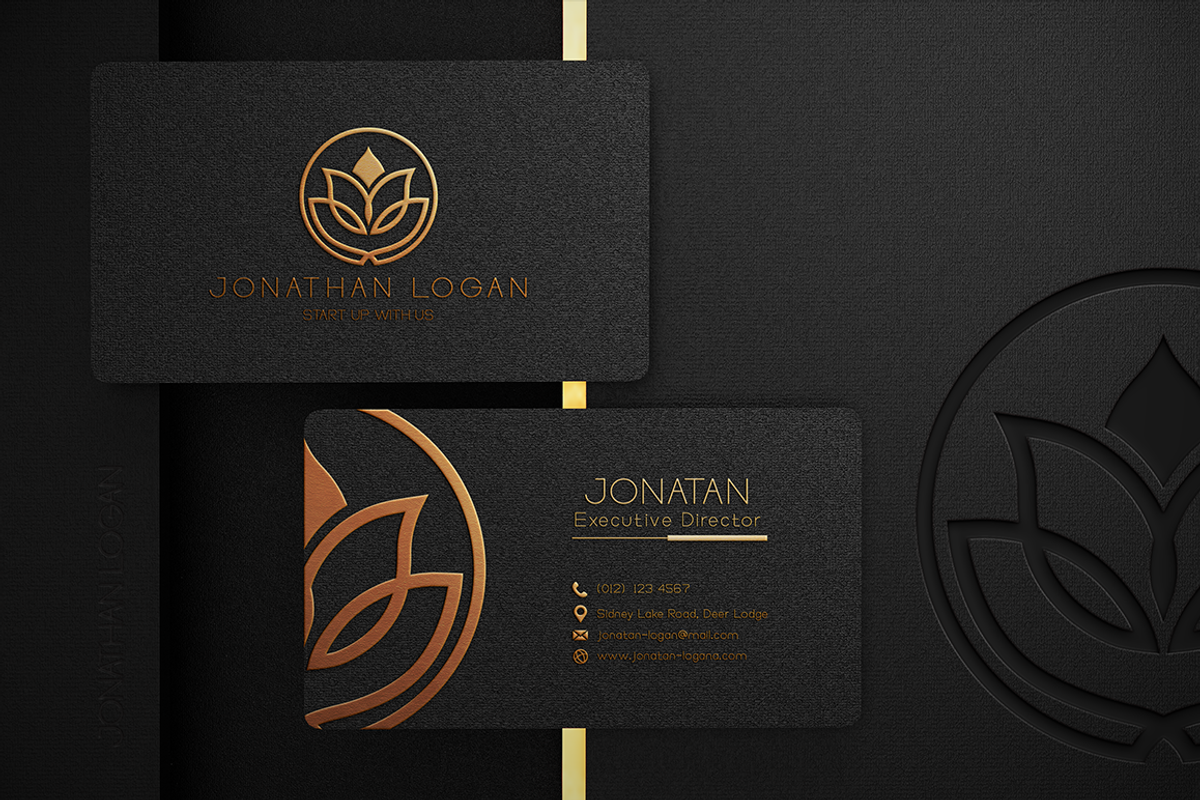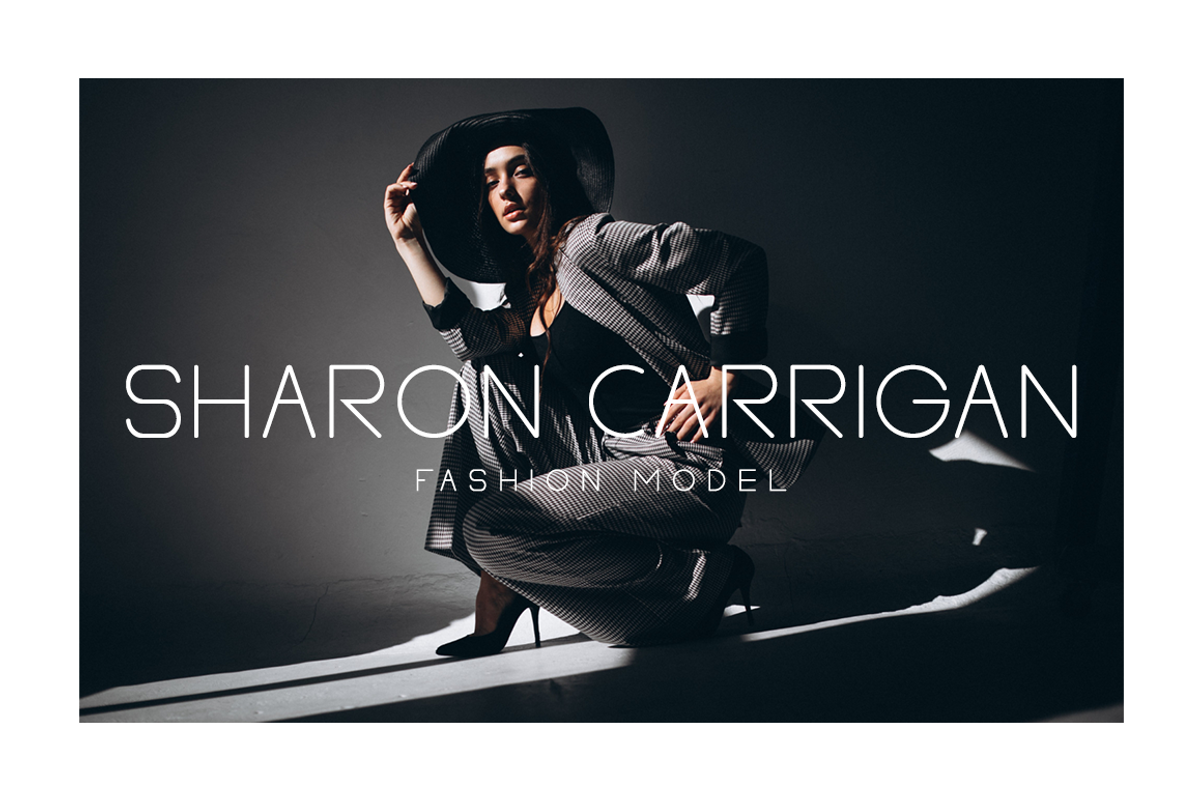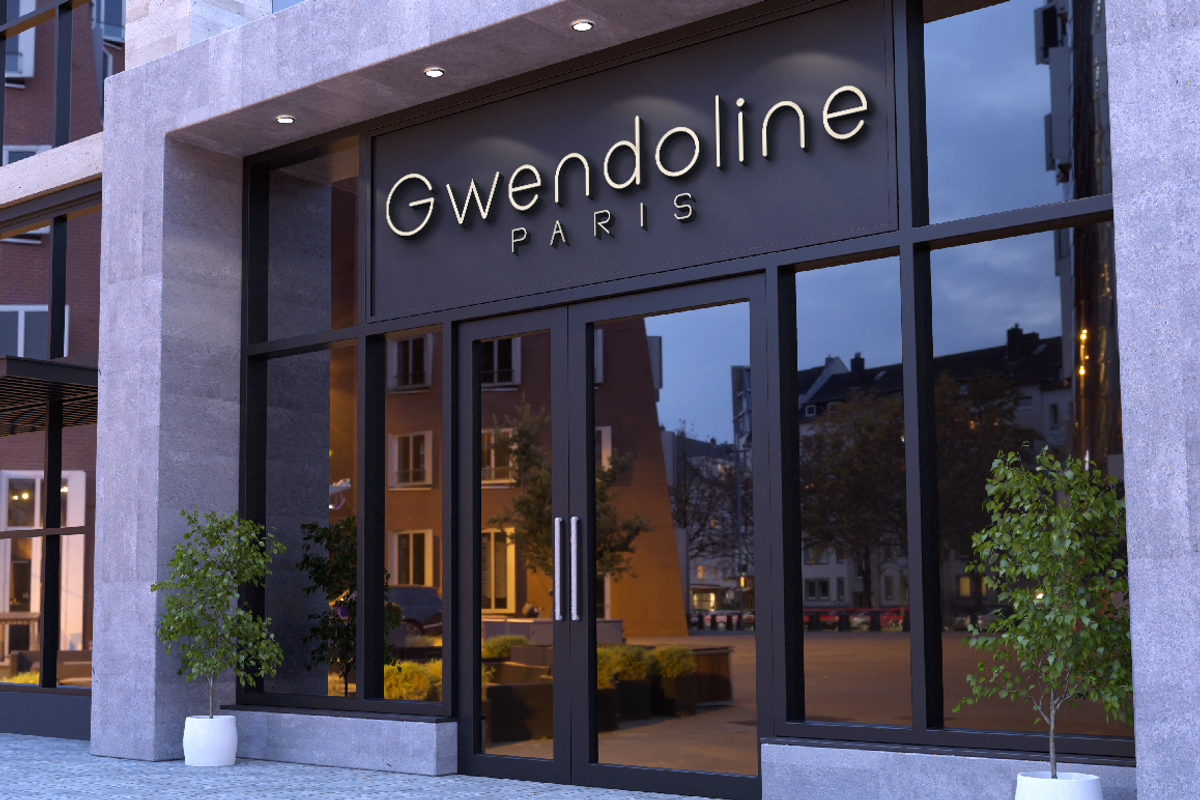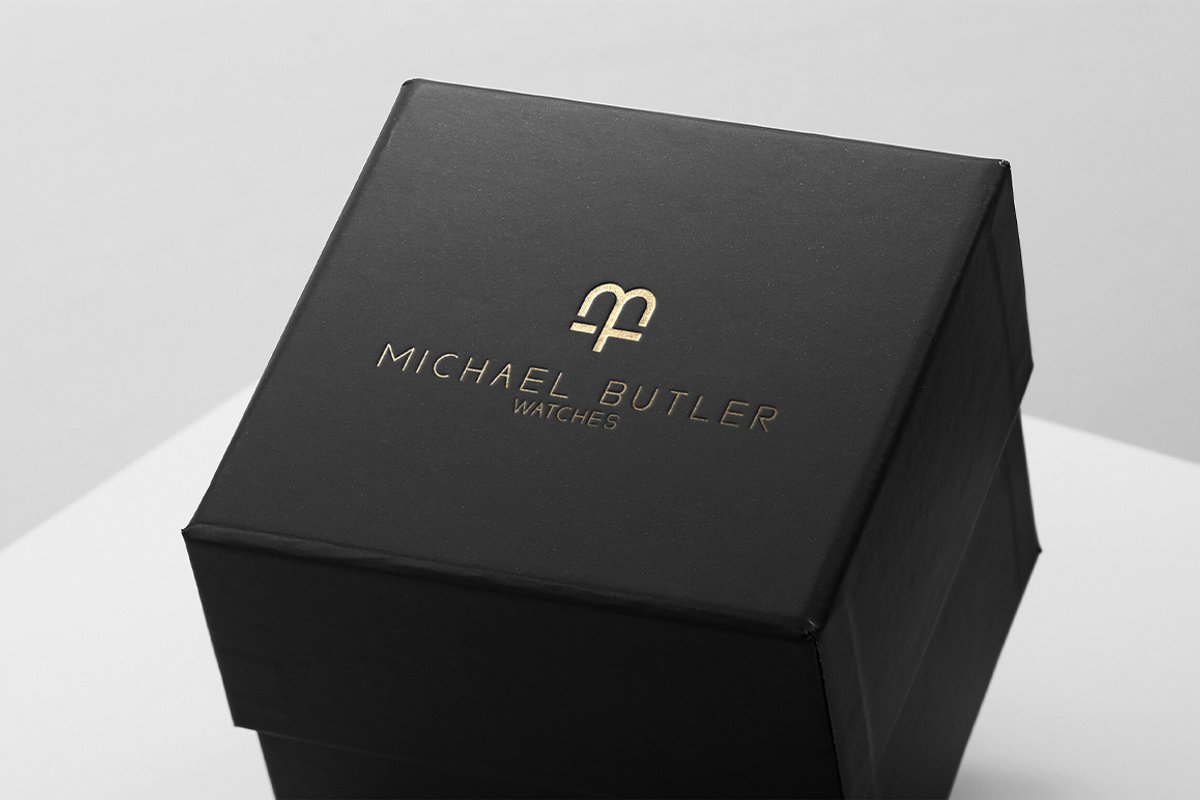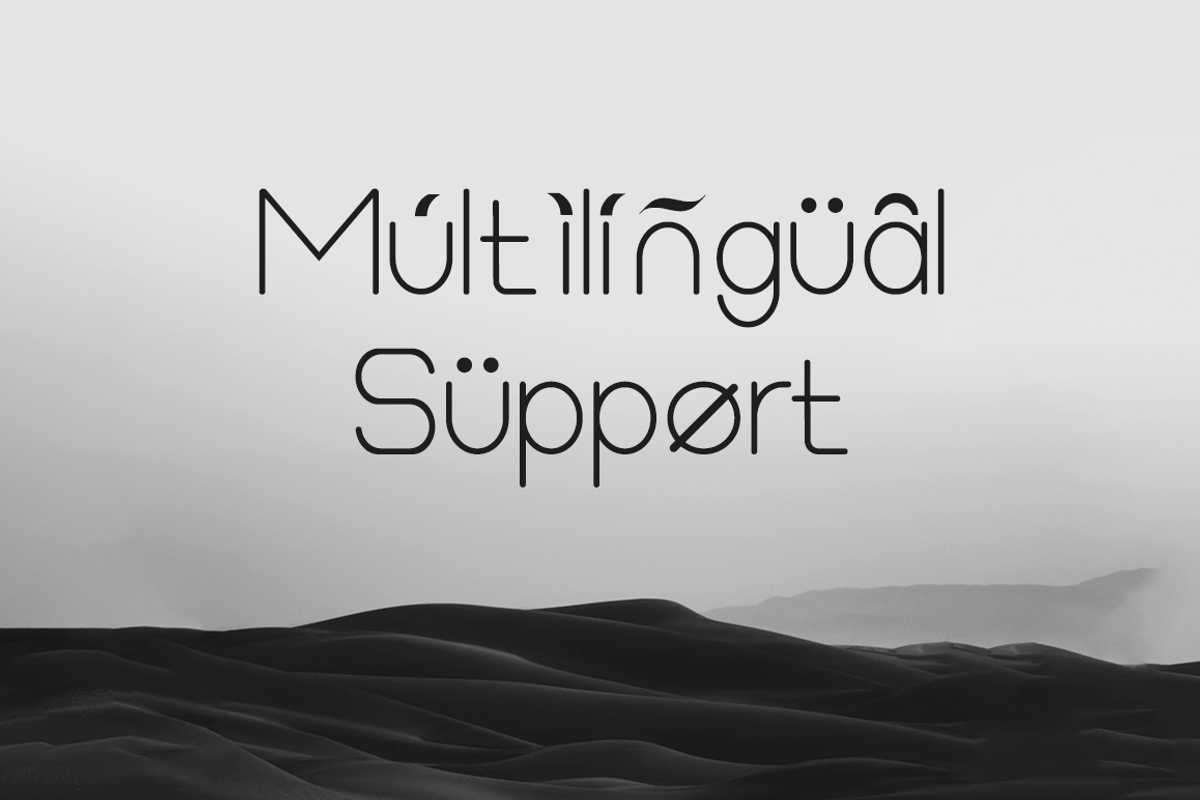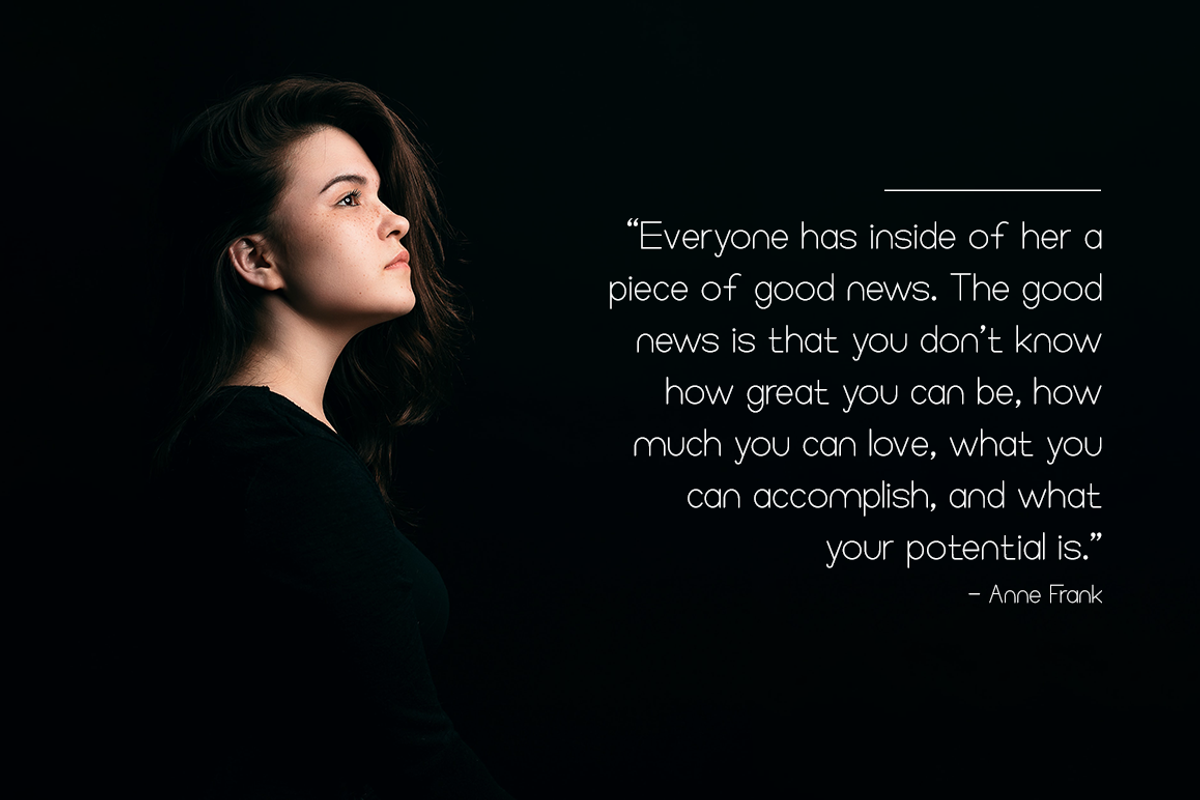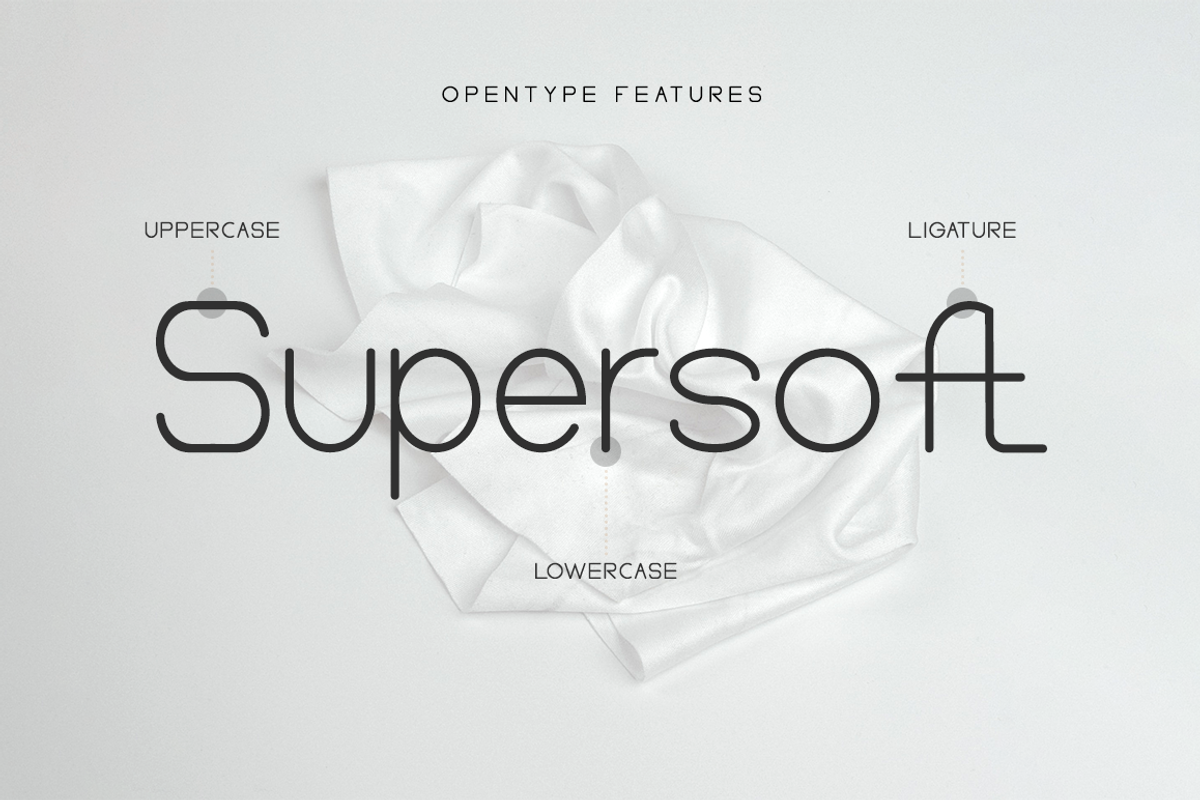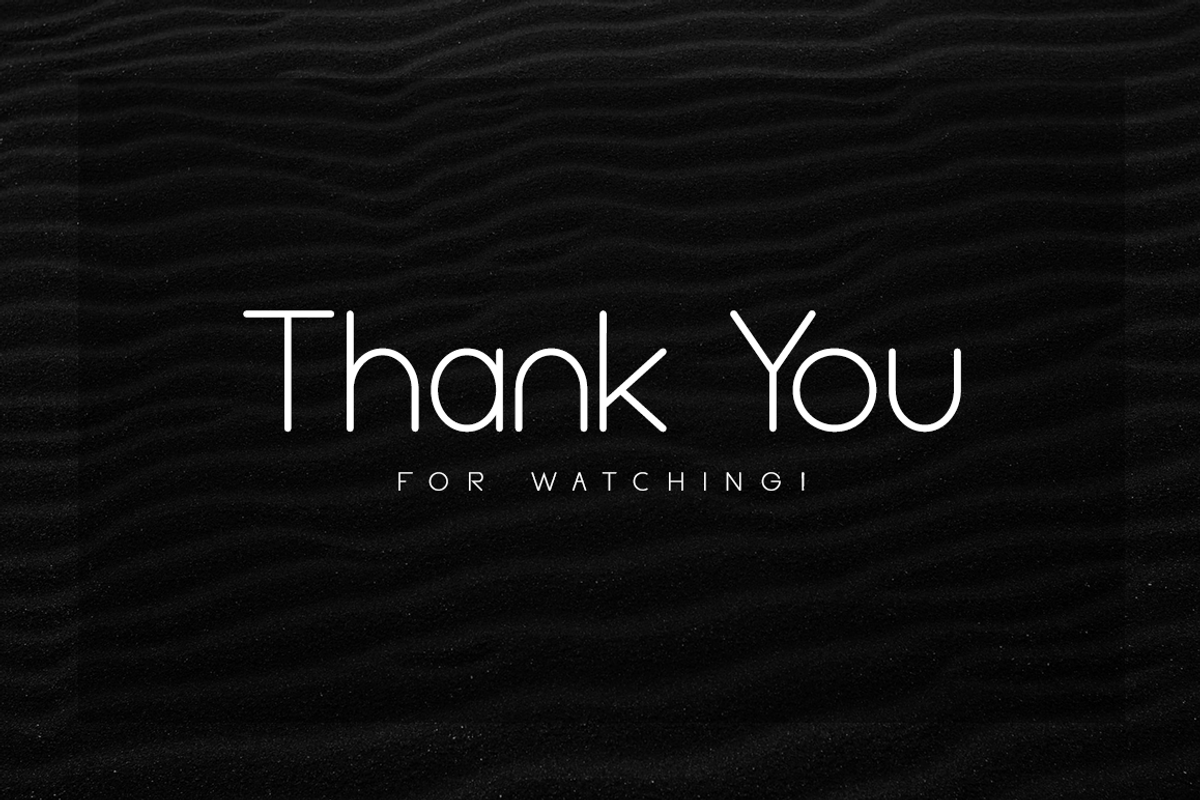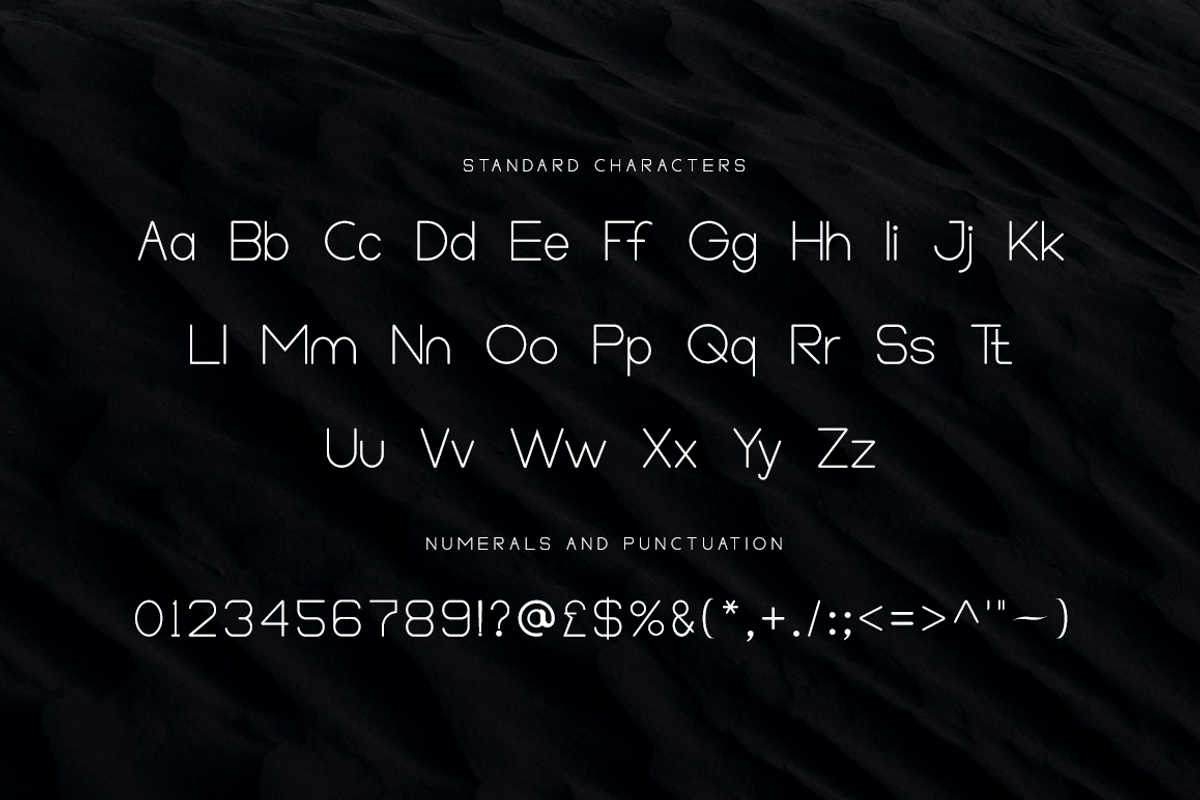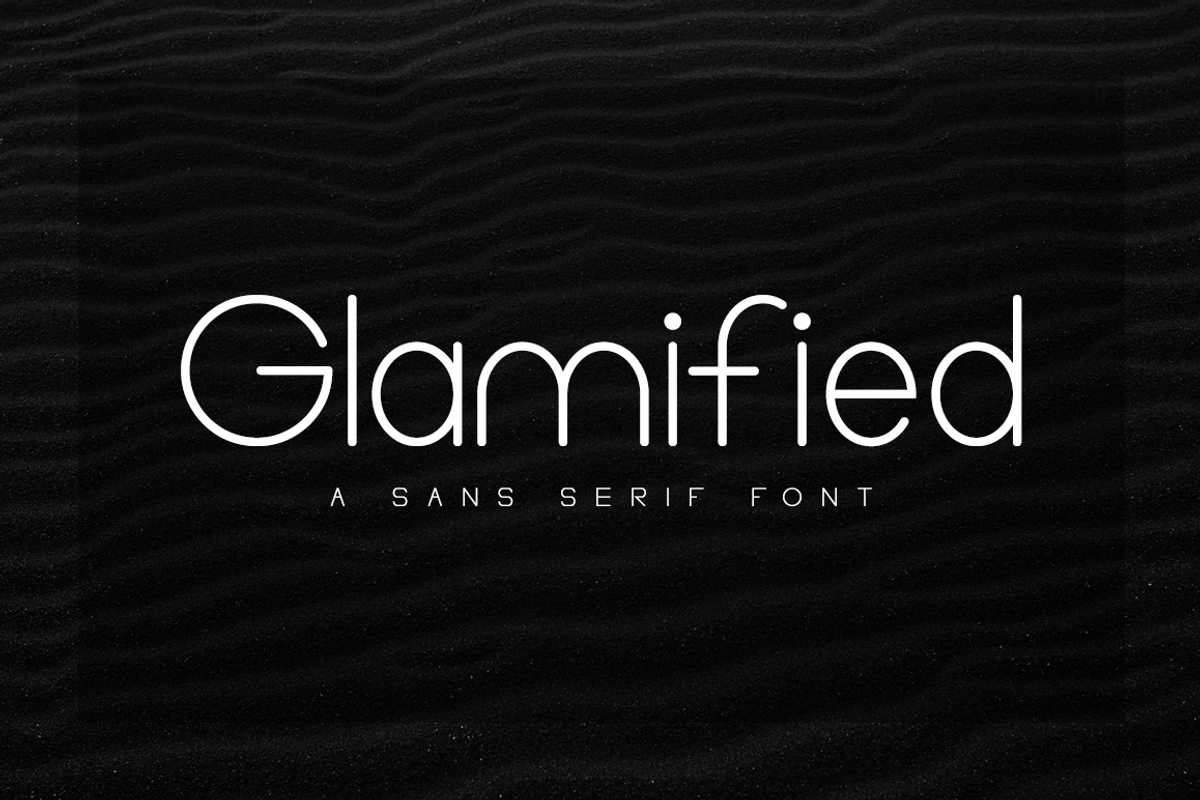
Glamified - Advertisement Font
Glamified is an elegant and modern sans serif font. It can easily match your various projects, so add it to your creative ideas and watch how it makes them stand out.